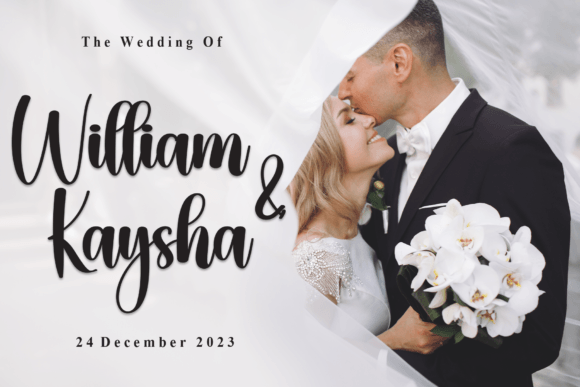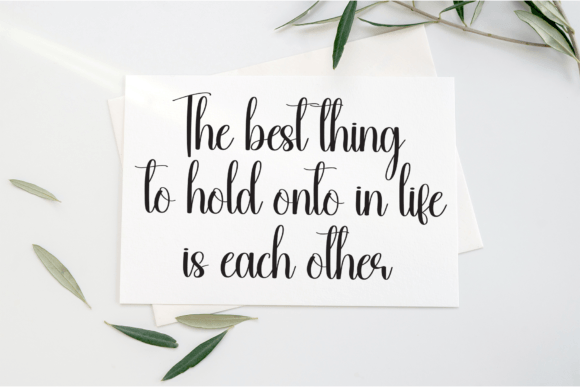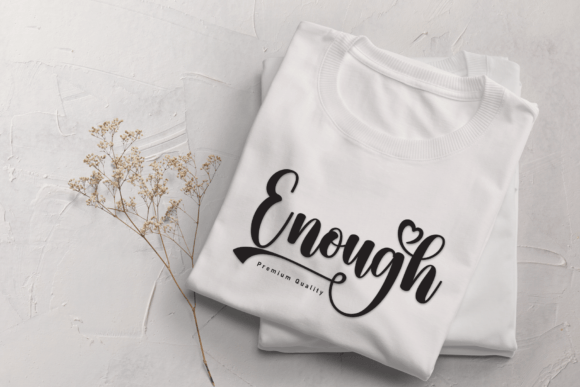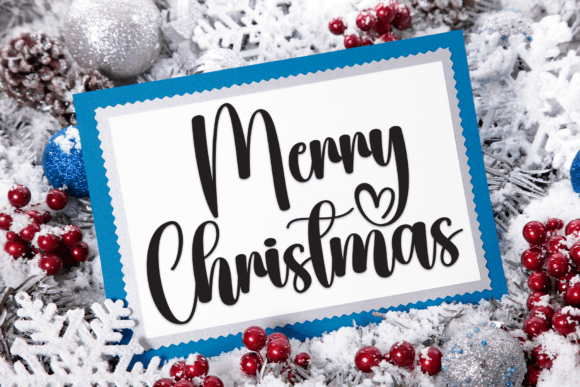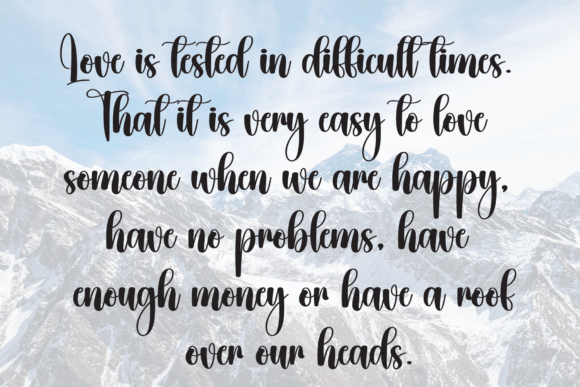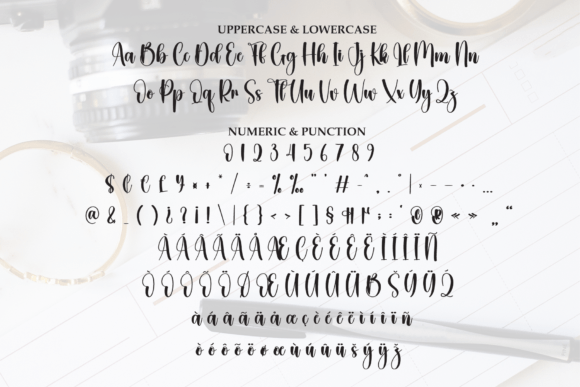
The Magical World of Hey Saturday Font
I’ll never forget the Sunday morning I spent hours scrolling through font libraries, searching for the perfect script font for a client’s branding project. The client wanted something elegant, yet playful, and I was determined to find it. That’s when I stumbled upon Hey Saturday Font, a beautiful script font that has since become a staple in my design toolkit.
A Personal Review of Hey Saturday Font
So, what makes Hey Saturday Font so special? Let’s dive into the good stuff! 😊
- ✨ Elegant and refined: Hey Saturday Font has a sophisticated feel that’s perfect for high-end branding, invitations, or any project that requires a touch of luxury.
- ✅ Highly versatile: This font works beautifully in a variety of contexts, from social media graphics to print materials, and even web design.
- 💫 Unique character set: The font comes with a range of OpenType features, glyphs, and stylistic alternates that allow you to add personality and flair to your designs.
The Not-So-Perfect Details
While Hey Saturday Font is an amazing addition to any design project, there are a few quirks to keep in mind:
- 🤔 Limited multilingual support: While the font covers a range of languages, it may not support every language or character set you need.
The Story Behind Hey Saturday Font
While the true story behind Hey Saturday Font remains a mystery, it’s easy to imagine that its designer was inspired by the magic of a lazy Saturday morning. Perhaps they spent hours sipping coffee, experimenting with letterforms, and crafting a font that would bring joy to designers and crafters alike.
| Is Hey Saturday Font suitable for body text? | While Hey Saturday Font is beautiful, it’s primarily designed for display text or headings. For body text, you may want to choose a font with better legibility. |